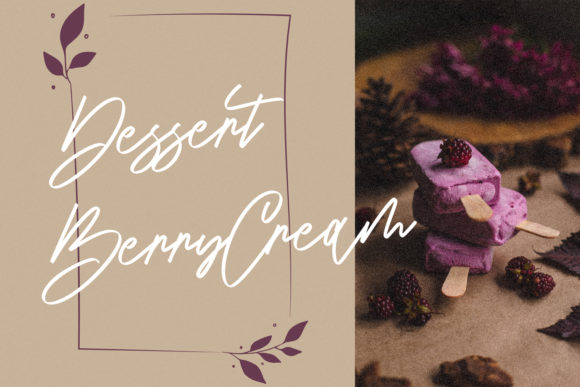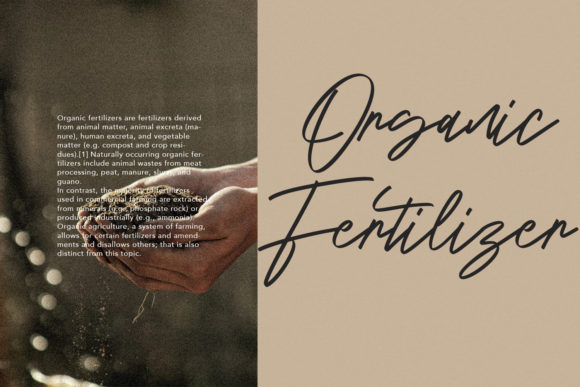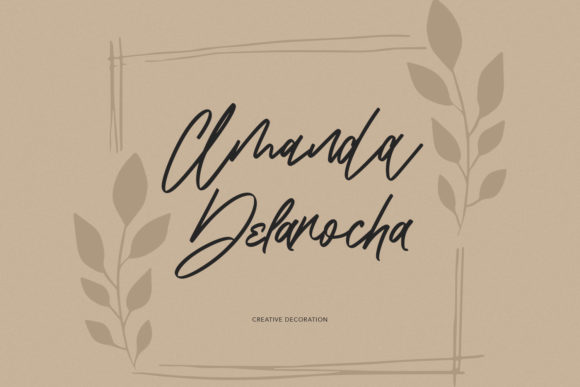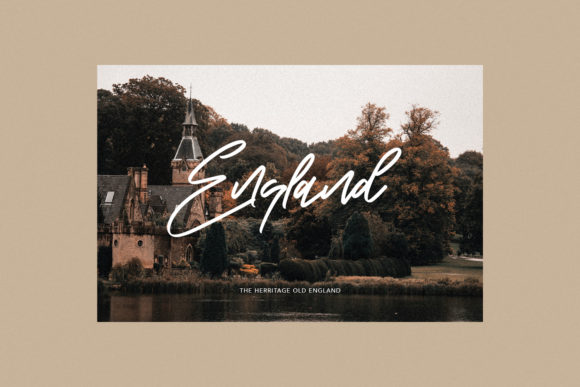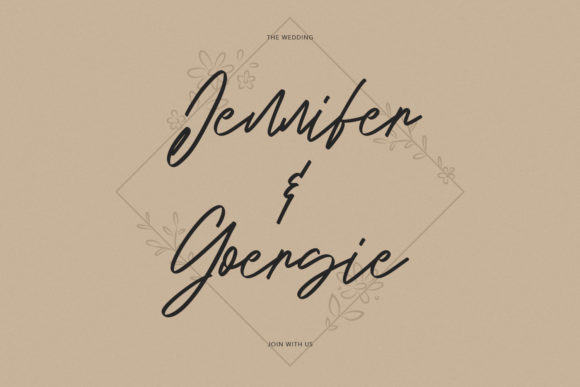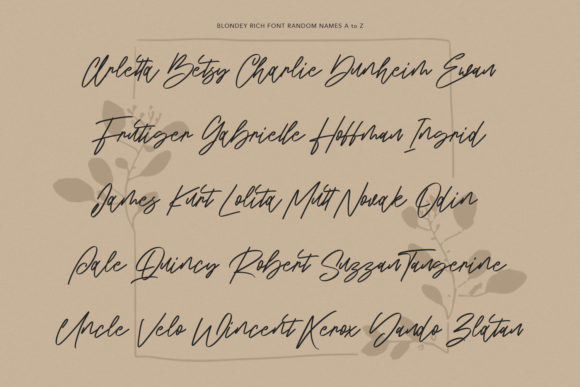
Introducing Blondey Rich Font: Elevate Your Designs with a Relaxed and Distinct Script Font
Are you tired of using the same old fonts for your designs? Do you want to add a touch of elegance and sophistication to your branding, logos, and quotes? Look no further than Blondey Rich Font, a beautiful and unique script font that’s perfect for designers and crafters looking to make a statement.
What is Blondey Rich Font?
Blondey Rich Font is a relaxed and distinct script font that’s designed to help you create eye-catching logos, branding, and quotes that stand out from the crowd. With its beautiful and unique touch, every letter is carefully crafted to bring your design to life. Whether you’re a professional designer or a DIY crafter, Blondey Rich Font is the perfect choice for anyone looking to add a touch of personality to their work.
Key Features of Blondey Rich Font
- Unique and Beautiful Touch: Every letter in Blondey Rich Font has a unique and beautiful touch that will make your design come alive. The font’s distinctive style is perfect for creating eye-catching logos, branding, and quotes that stand out from the crowd.
- Relaxed and Distinct Script Font: Blondey Rich Font is a relaxed and distinct script font that’s perfect for creating designs that are both elegant and sophisticated. The font’s script style is easy to read and perfect for use in a variety of design applications.
- Elegant and Sophisticated: Blondey Rich Font is the perfect choice for designers and crafters looking to add a touch of elegance and sophistication to their work. The font’s beautiful and unique style is perfect for creating designs that are both stylish and professional.
Uses for Blondey Rich Font
Blondey Rich Font is a versatile font that can be used in a variety of design applications, including:
- Logo Design: Create eye-catching logos that stand out from the crowd with Blondey Rich Font. The font’s unique and beautiful style is perfect for creating memorable and effective logos.
- Branding: Use Blondey Rich Font to create branding materials that are both elegant and sophisticated. The font’s script style is perfect for creating a professional and stylish brand identity.
- Quotes and Posters: Add a touch of personality to your quotes and posters with Blondey Rich Font. The font’s unique and beautiful style is perfect for creating eye-catching and inspiring designs.
Why Choose Blondey Rich Font?
So why choose Blondey Rich Font over other fonts? Here are just a few reasons:
- Unique Style: Blondey Rich Font has a unique and beautiful style that’s unlike any other font. The font’s distinctive style is perfect for creating designs that stand out from the crowd.
- High-Quality Design: Blondey Rich Font is a high-quality font that’s designed to produce crisp and clear results. The font is perfect for use in both print and digital applications.
In conclusion, Blondey Rich Font is a beautiful and unique script font that’s perfect for designers and crafters looking to add a touch of elegance and sophistication to their work. With its relaxed and distinct style, every letter is carefully crafted to bring your design to life. Whether you’re creating logos, branding, or quotes, Blondey Rich Font is the perfect choice for anyone looking to make a statement.